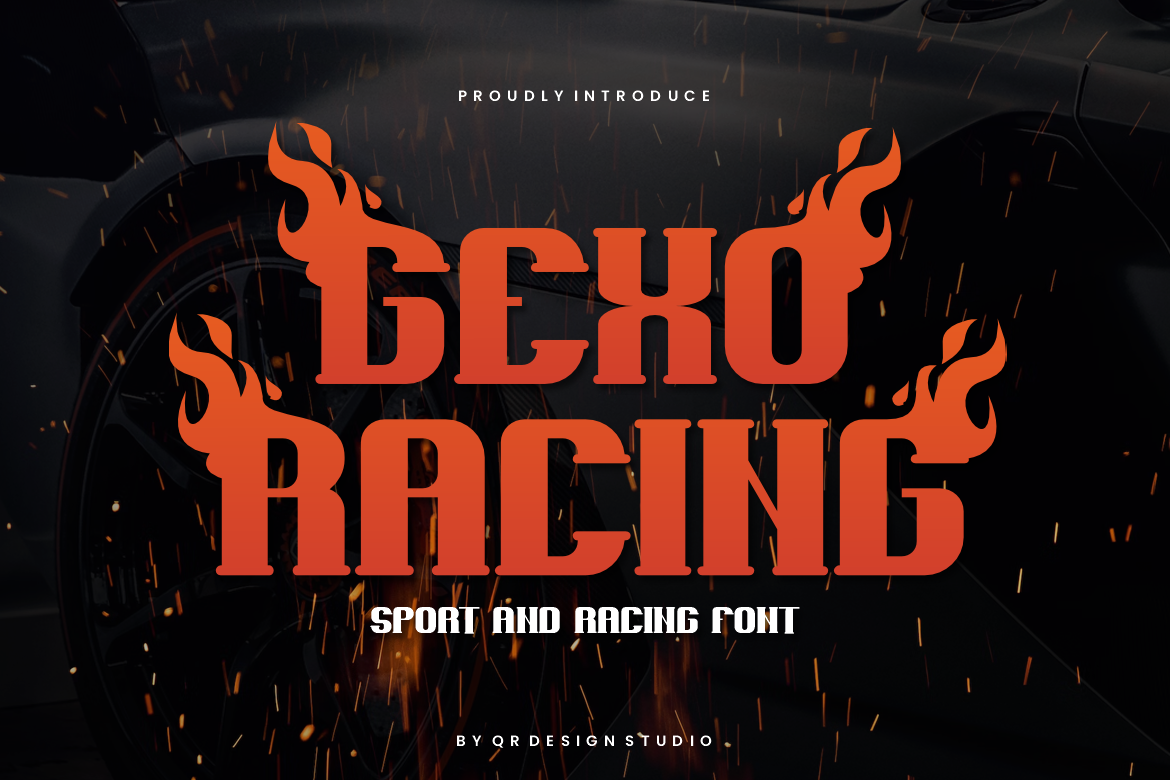
Gexo Racing Font
Gexo Racing Font is a bold and authentic display font. The font is suitable for any branding project like poster, logo, sport, and many more. Outstanding in a wide range of contexts.